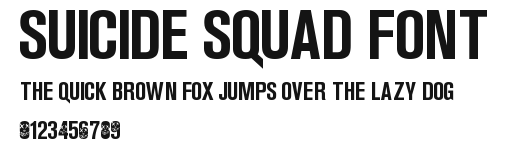
About Suicide Squad Font.ttf
Suicide Squad Font.ttf is a modern, elegant sans-serif font designed for ultimate readability and visual harmony. Perfect for branding, headlines, web design, and print materials.